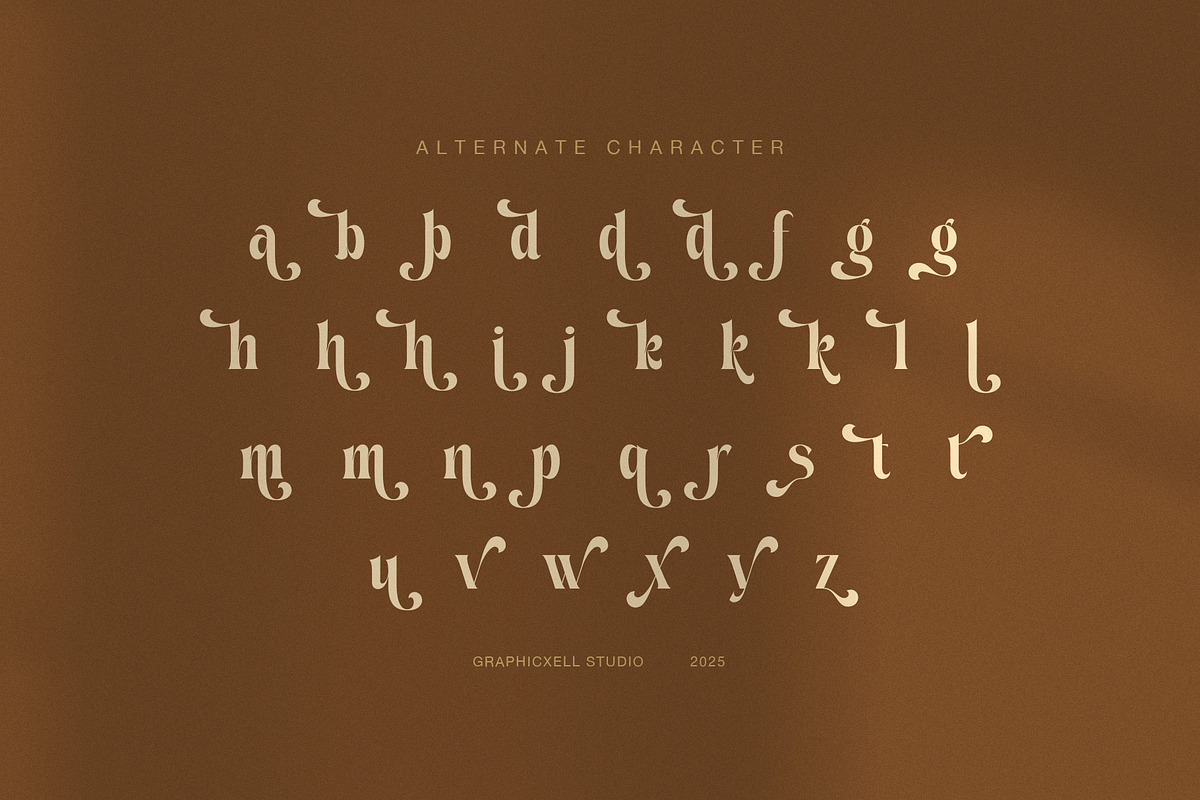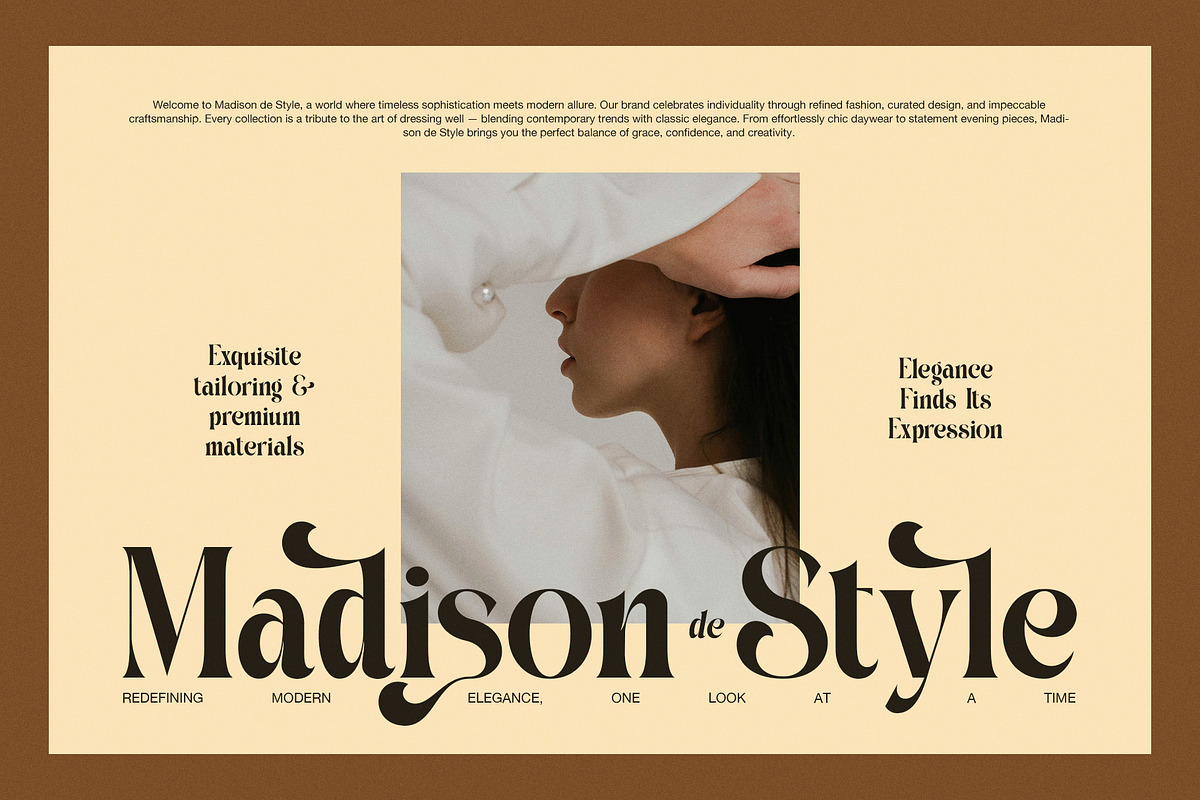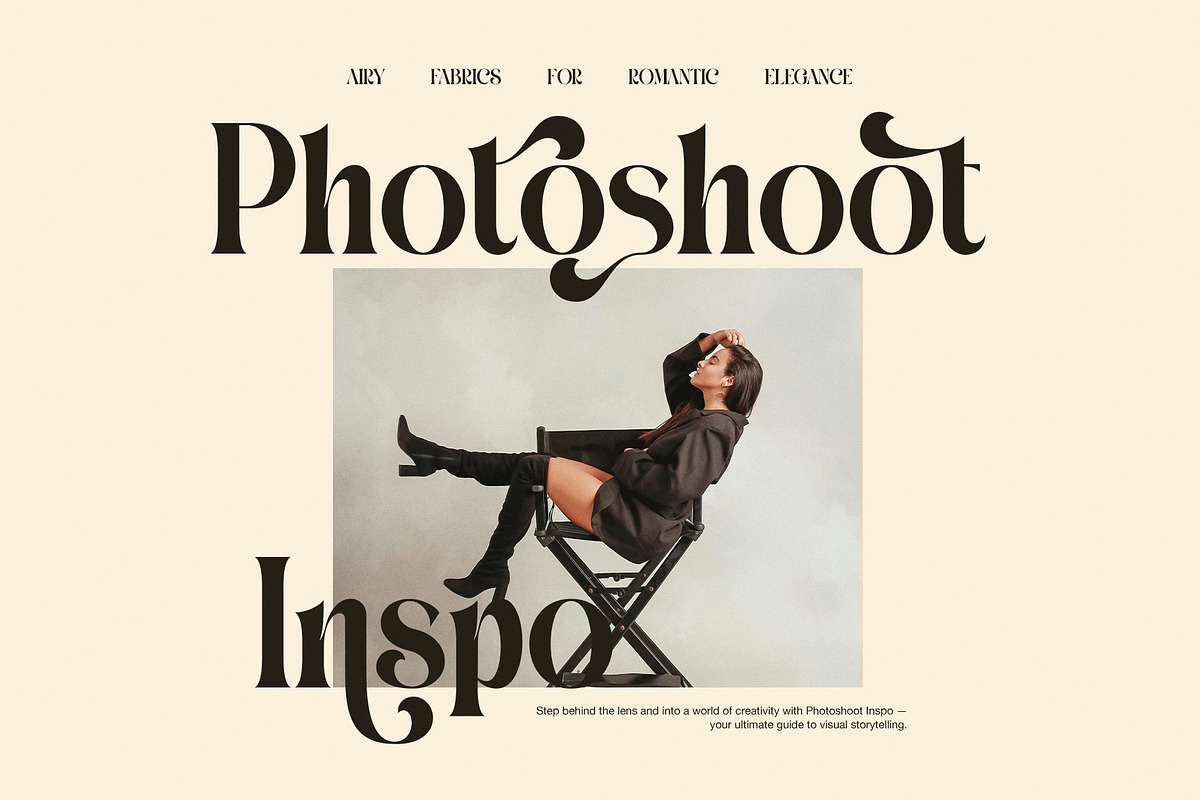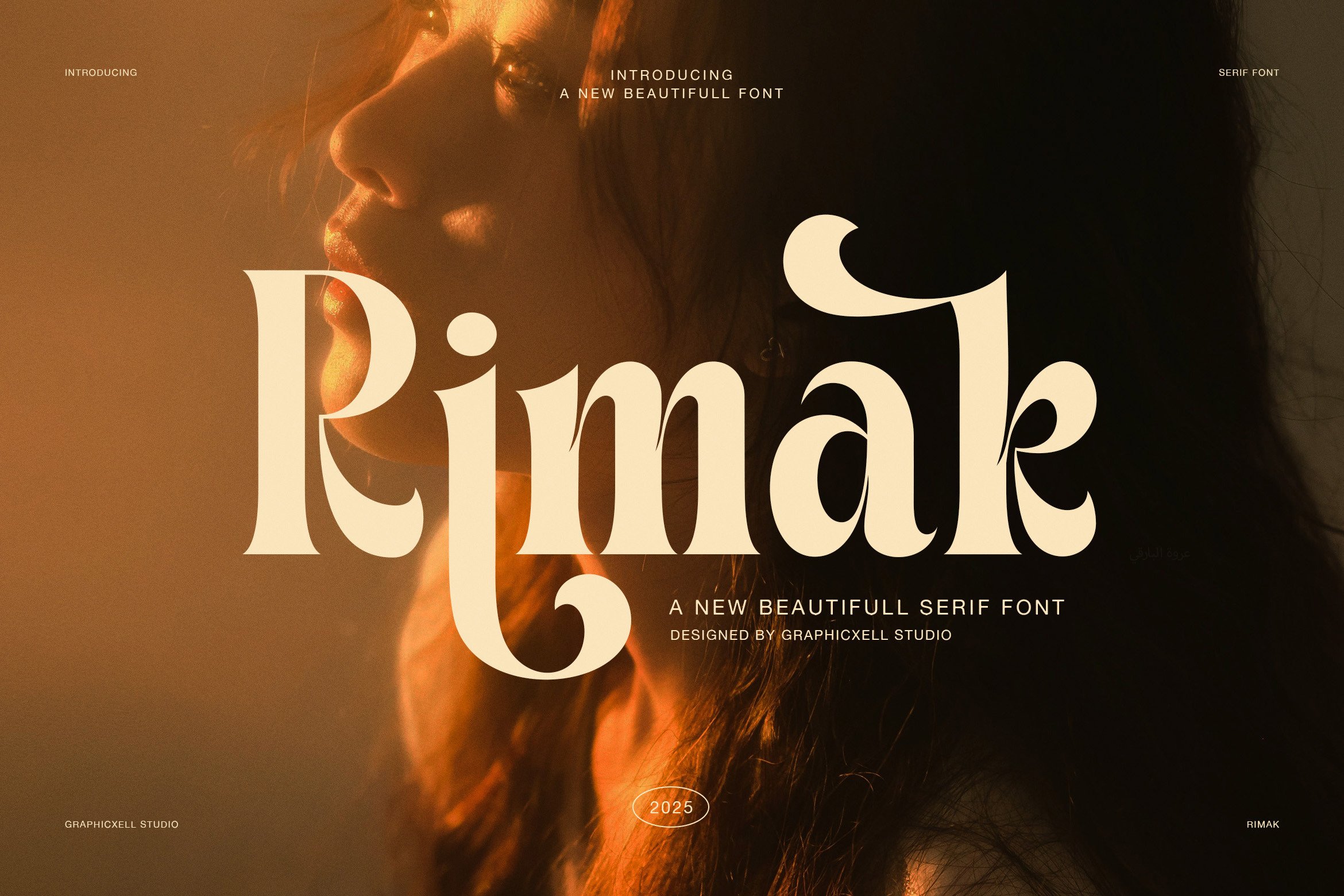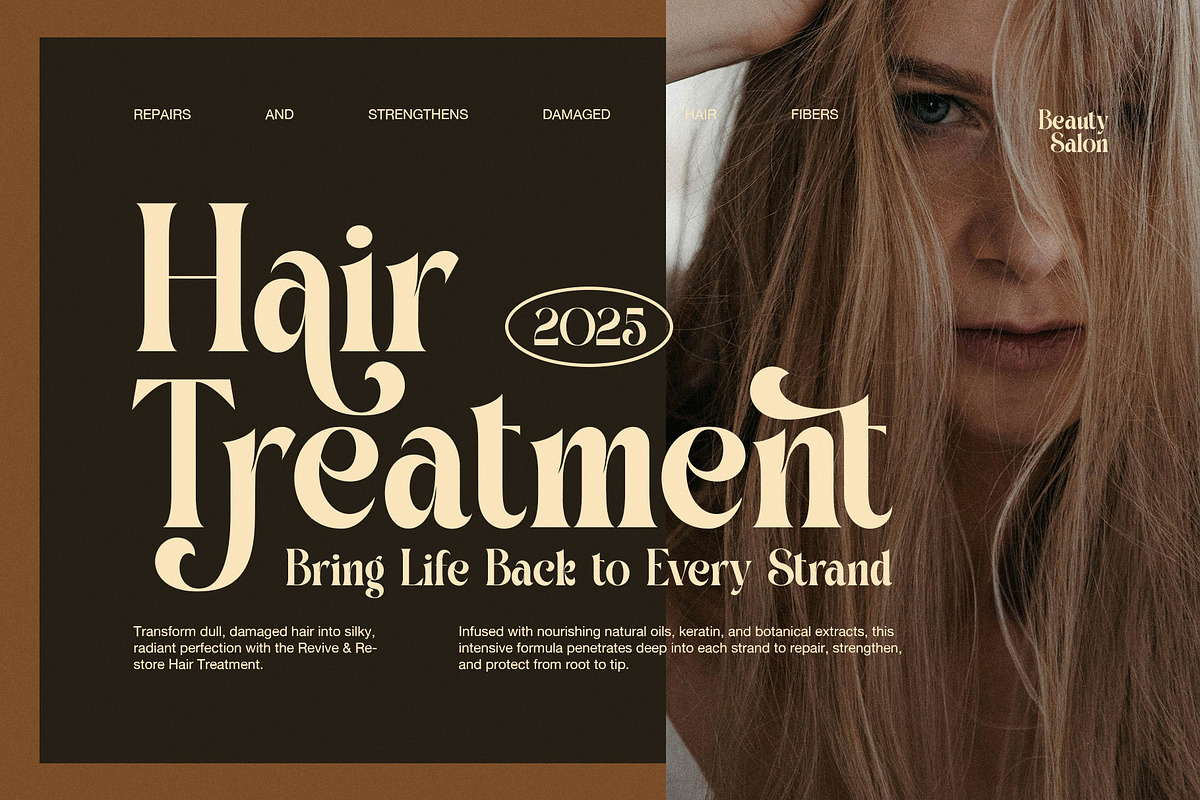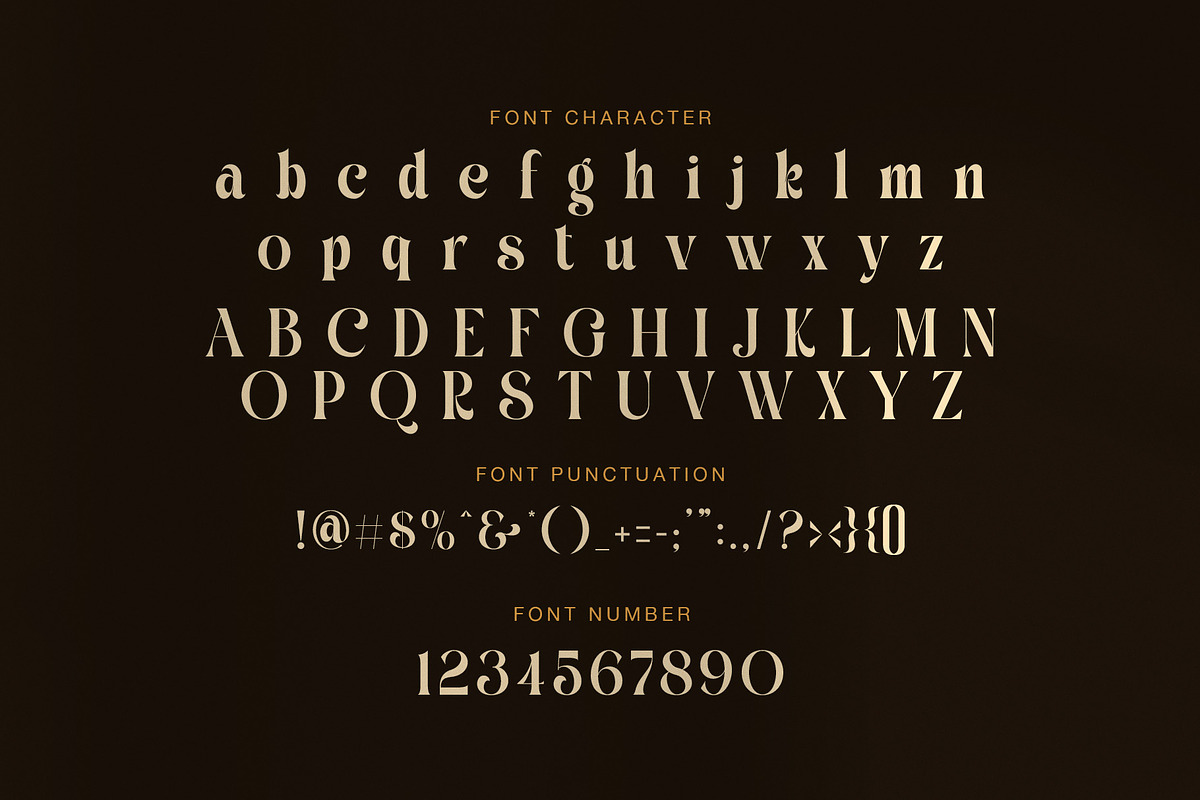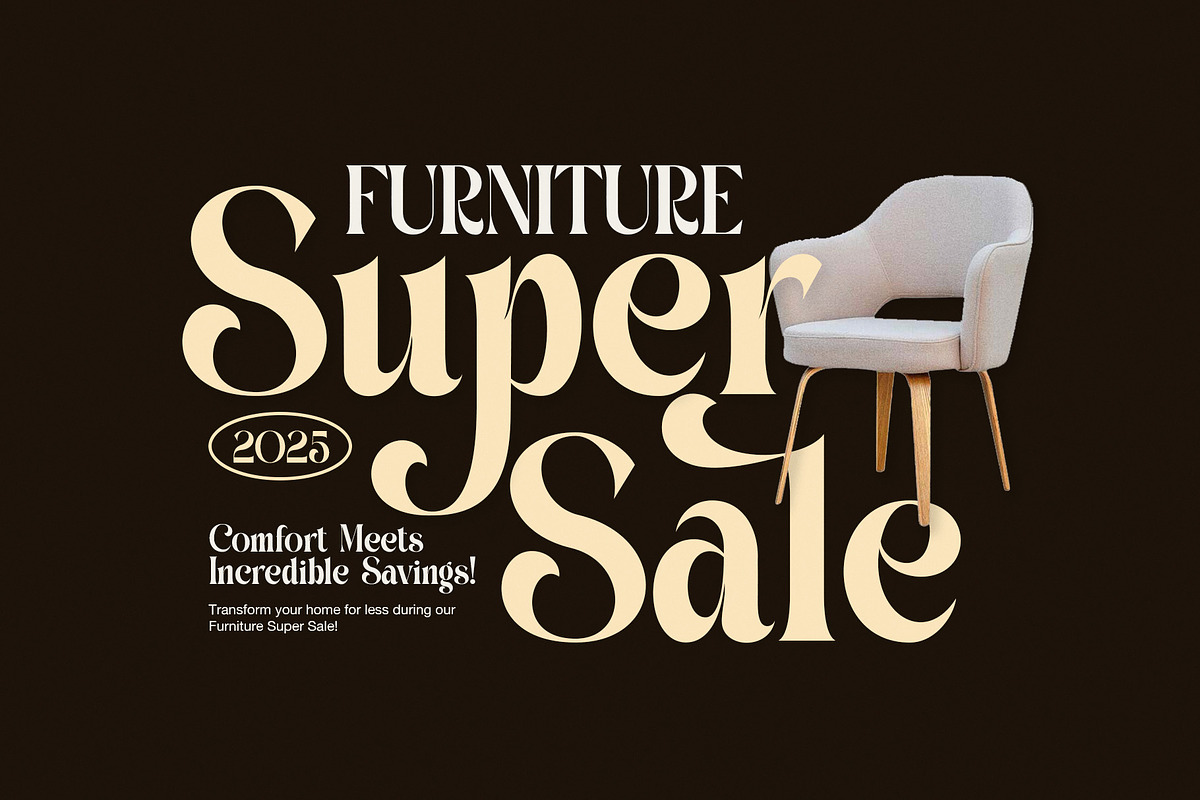
Rimak Elegant Display Serif Font
Rimak is an elegant display serif font designed to deliver timeless beauty with a modern editorial feel. It blends classic serif structure with expressive curves, which creates a refined yet artistic personality. As a result, Rimak feels both luxurious and versatile across many creative projects.
First of all, Rimak features soft contrast, sculpted terminals, and graceful alternates that add charm without overpowering the layout. Moreover, each letterform flows naturally, which helps text feel balanced, readable, and visually engaging. Because of this, Rimak performs beautifully in both large headlines and short brand statements.
In addition, Rimak includes carefully crafted alternate characters that allow designers to create unique typographic compositions. These alternates add movement and elegance, especially in fashion layouts, beauty branding, and editorial spreads. Therefore, every word can feel custom while remaining consistent.
Furthermore, Rimak works exceptionally well for premium applications. You can use it for magazine titles, furniture campaigns, perfume packaging, salon branding, and lifestyle photography layouts. At the same time, it adapts easily to digital use, such as website headers, social media visuals, and online ads.
Another key strength is its emotional tone. Rimak communicates warmth, confidence, and sophistication. Because of its organic curves and smooth rhythm, it enhances storytelling rather than distracting from it. Consequently, your message remains clear while gaining visual depth.
Why choose Rimak Elegant Serif Font?
Elegant display serif with modern character
Expressive alternates for creative typography
Ideal for fashion, beauty, and editorial design
Balanced contrast for clear readability
Strong visual impact for headlines and branding
Works well in print and digital formats
In conclusion, Rimak is not just a typeface, but a design tool that elevates visual identity. Whether you are creating a luxury brand, a refined advertisement, or an artistic editorial layout, Rimak helps your work feel intentional, stylish, and memorable.